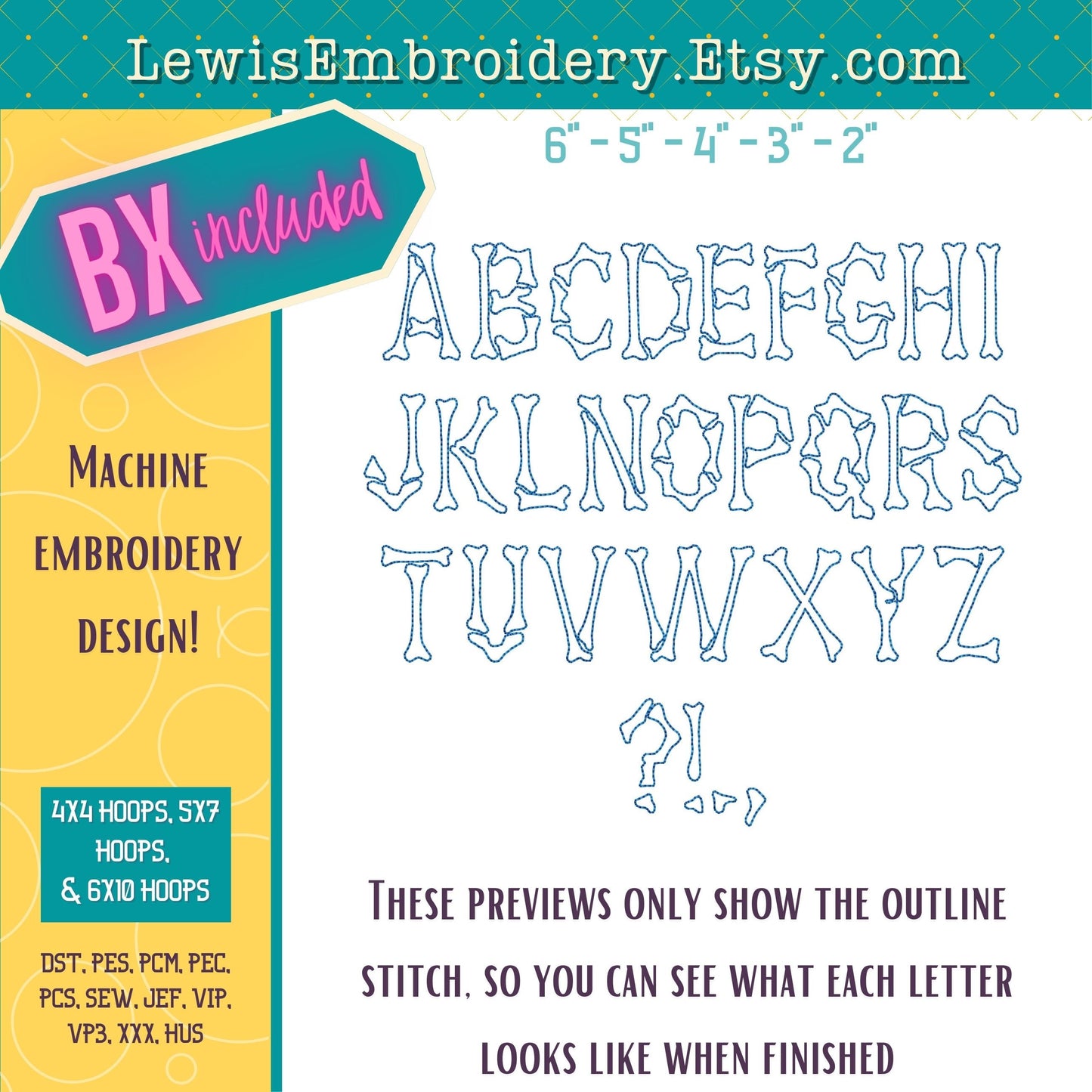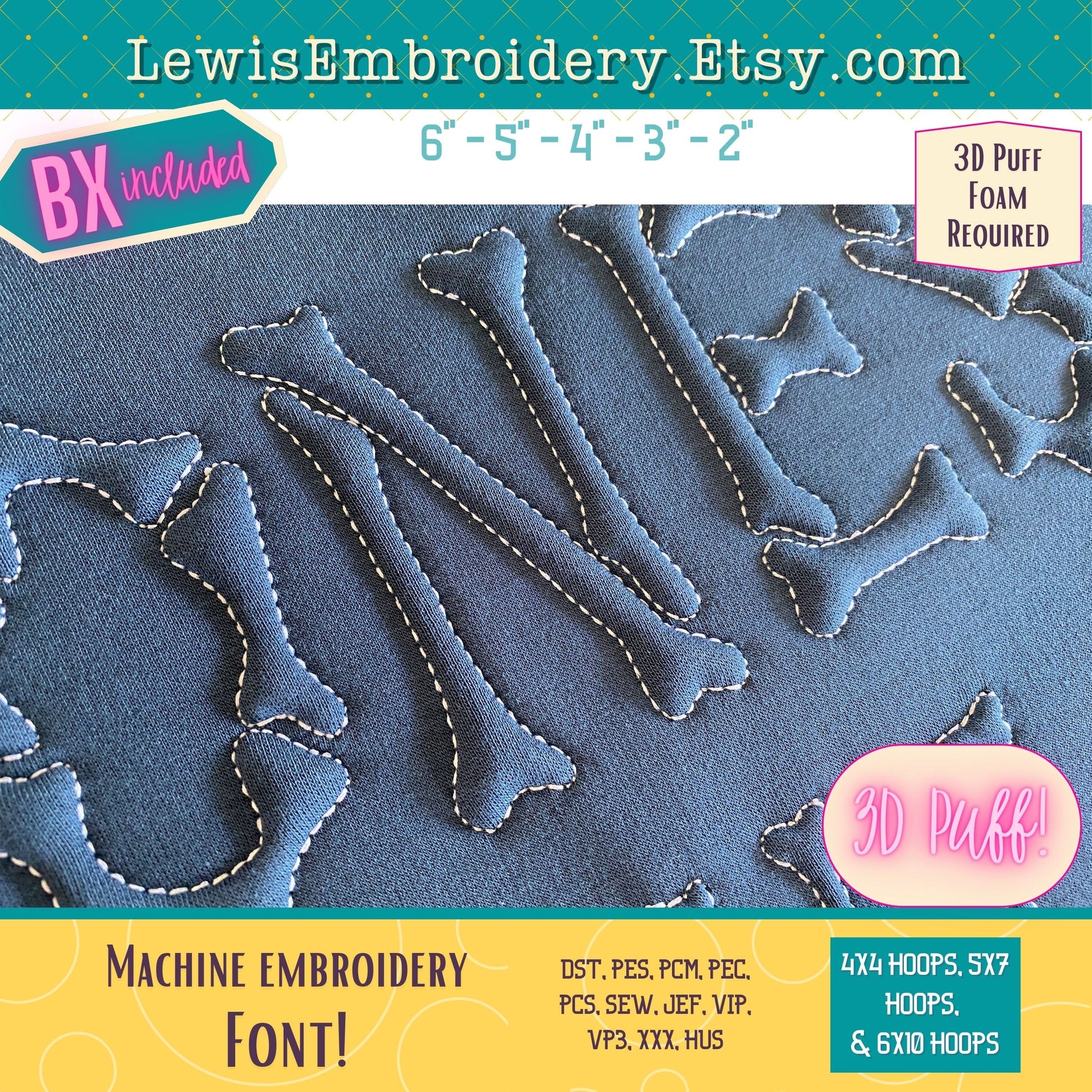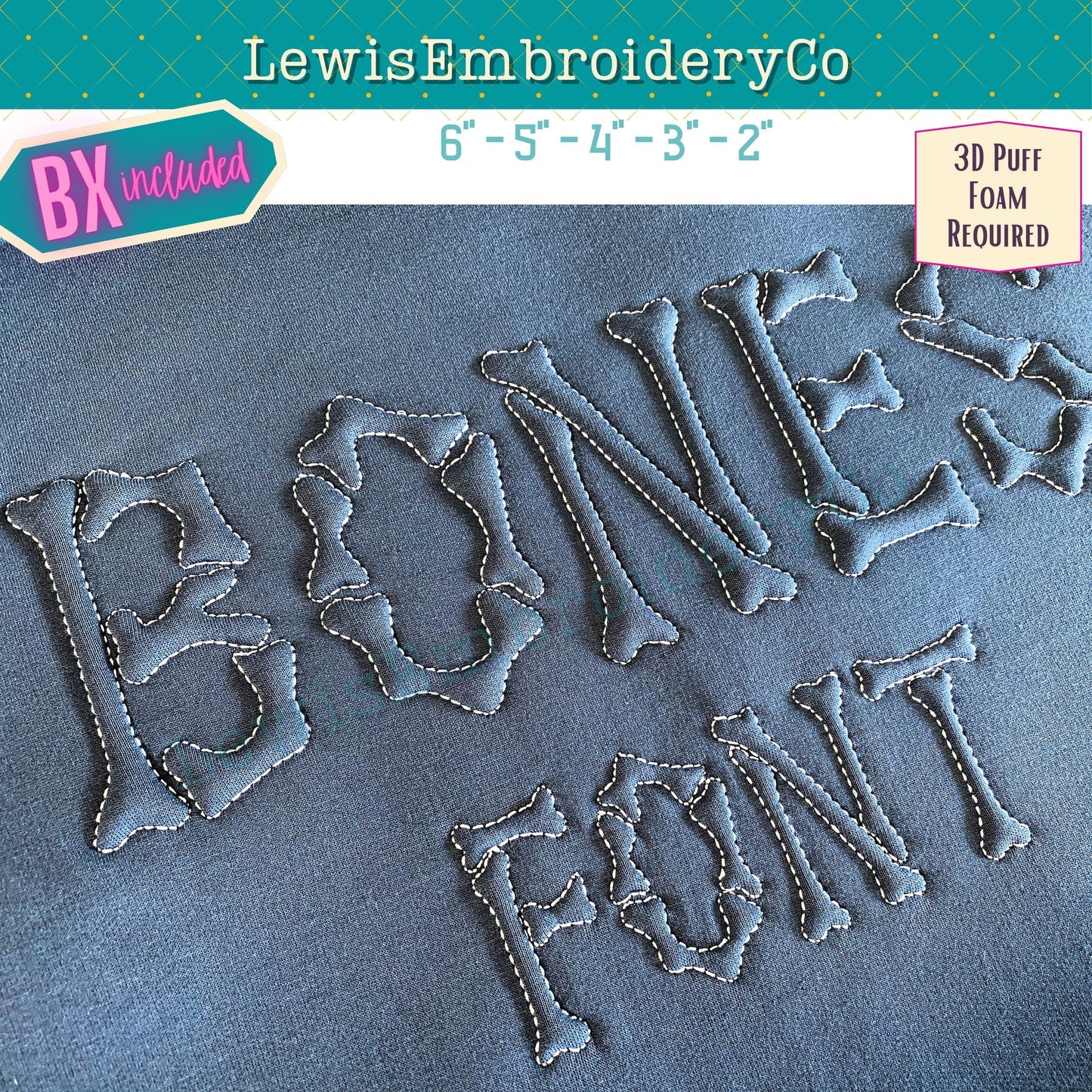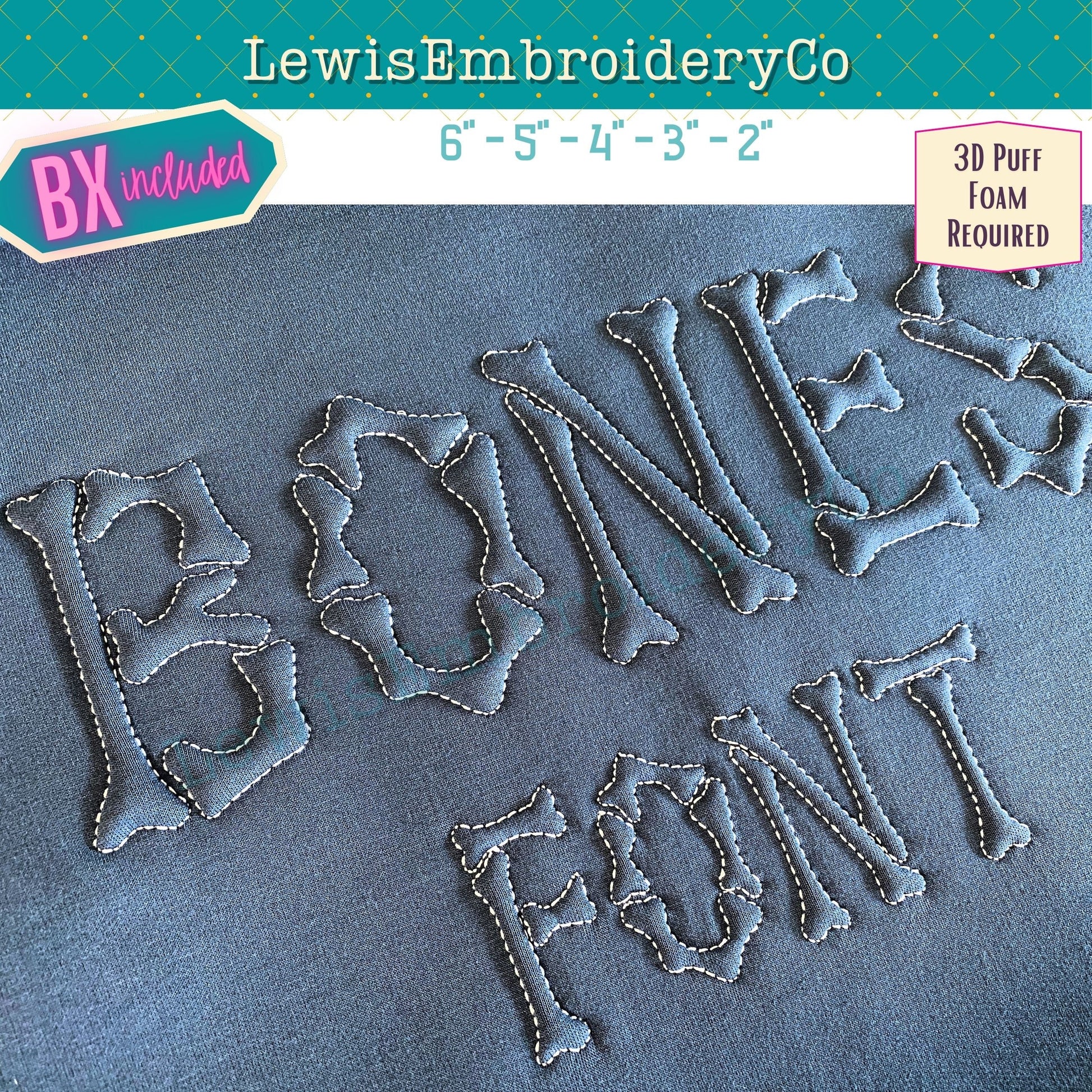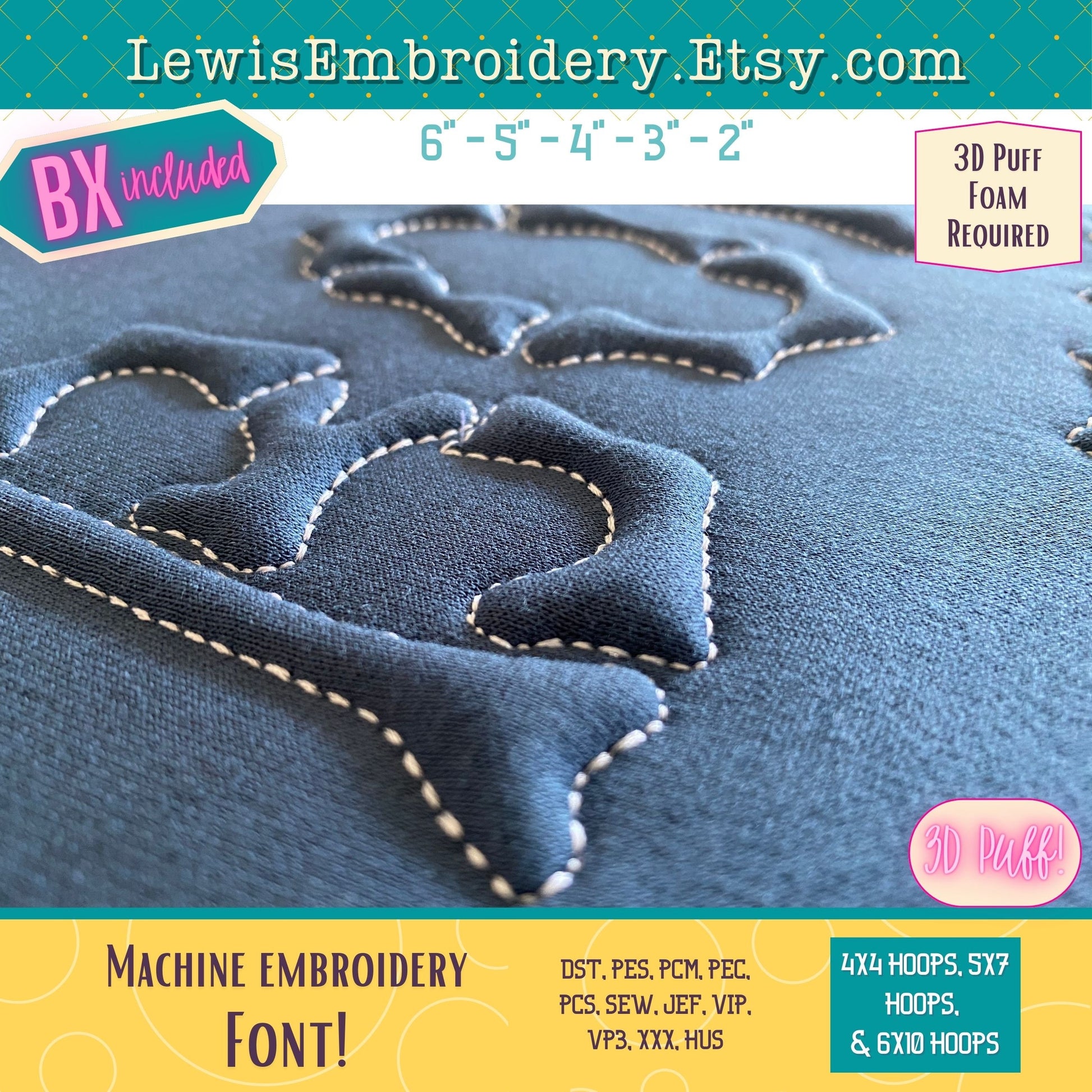
Embossed 3D Puff, Bones, Machine Embroidery Font - With BX - (PDF Tutorial Included)
Embossed 3D Puff Bones Embroidery Font - Puff Foam Skeleton Alphabet - Puffy Outline Font - Halloween Embroidery Font - BX Font - Skull